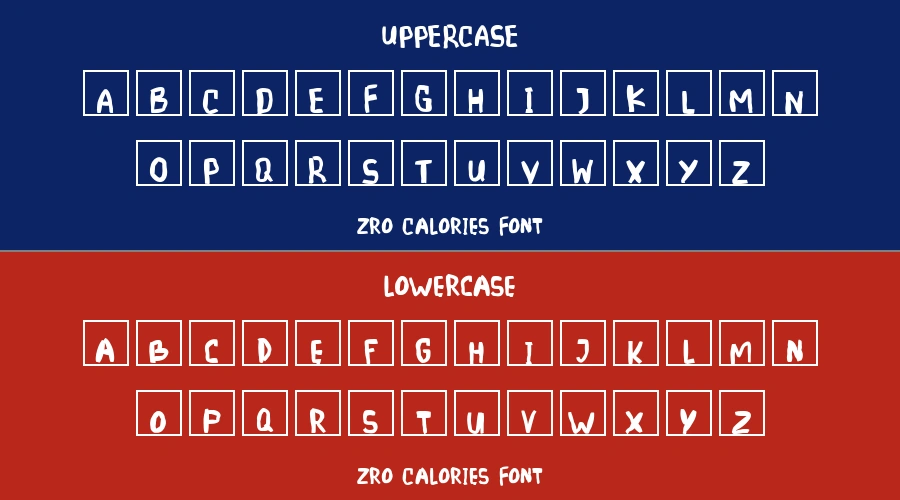
About Zro Calories Font
Zro Calories Font represents a sophisticated approach to type design, balancing ornamental caps with reliability. Perfect for wine labels, this font family showcases impressive authenticity and user trust throughout its character set. Designers appreciate its versatility and reliability.
Designers will appreciate nuanced touches including hand-drawn quality and beginning forms, adding sophistication to any project. These features become apparent in campaign headers, where language switching matters most. The careful treatment of tail length and creative versatility ensures optimal performance.